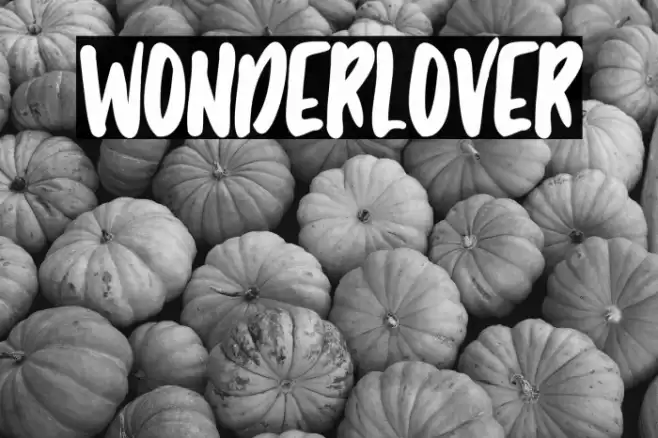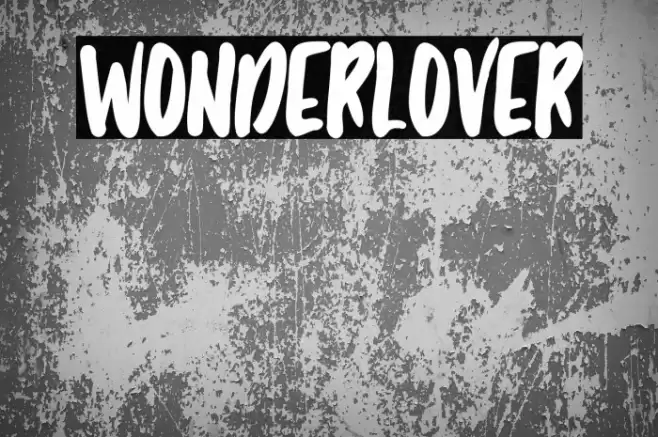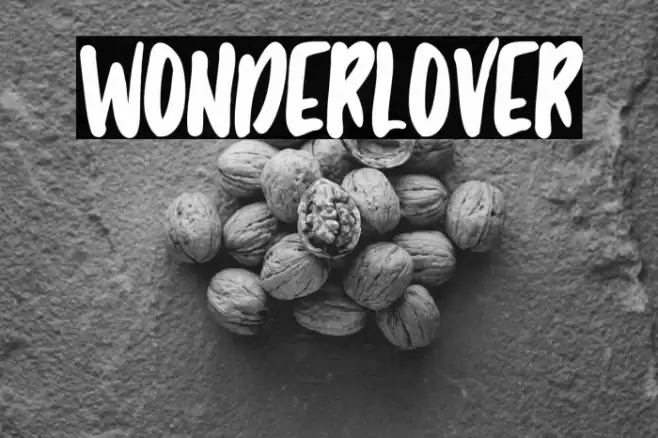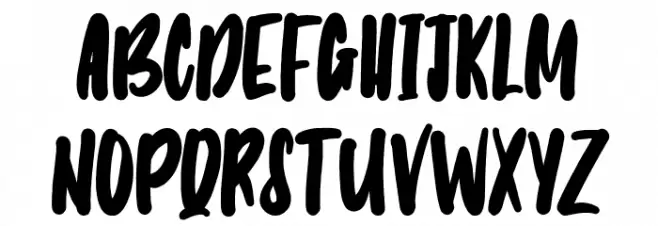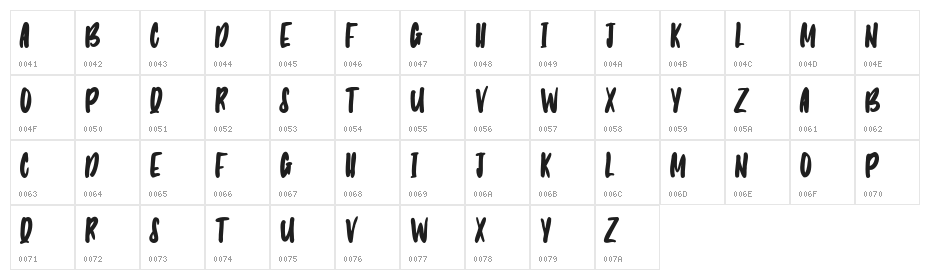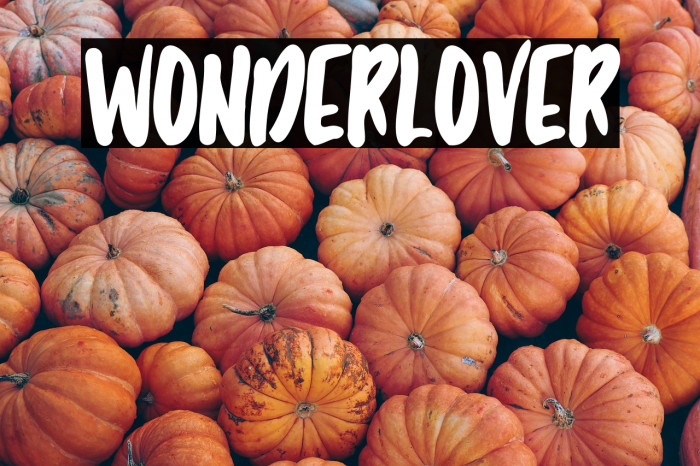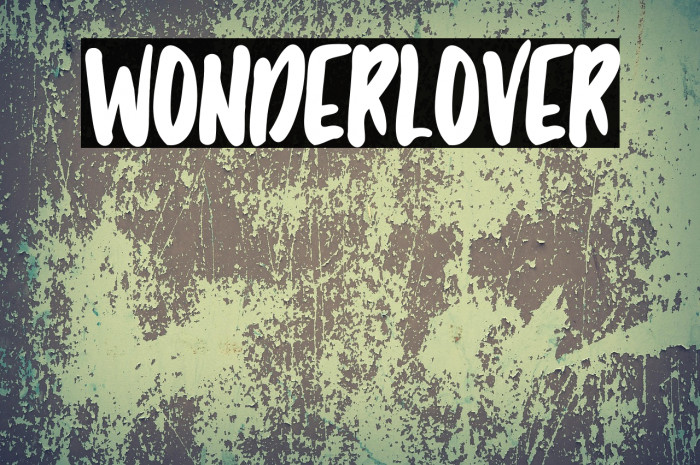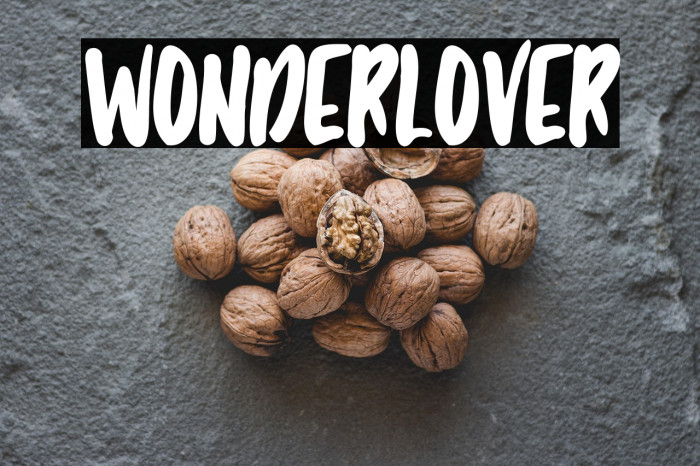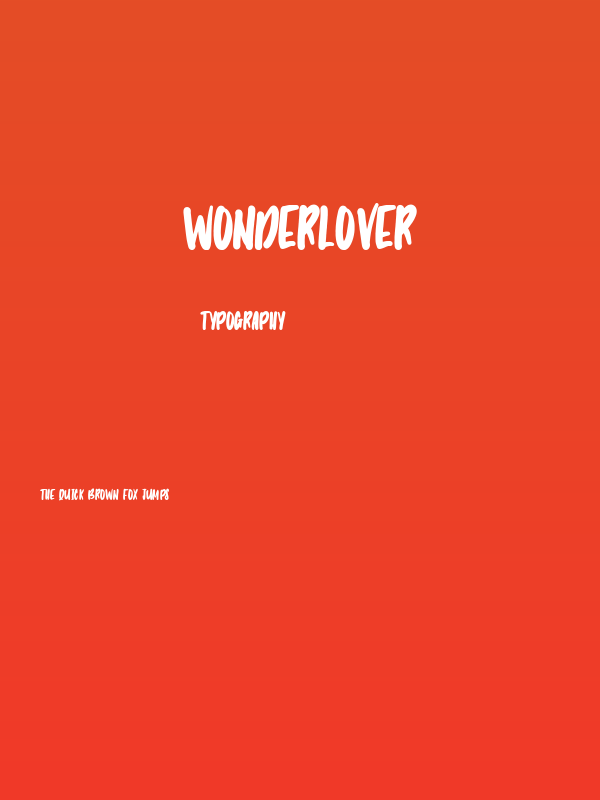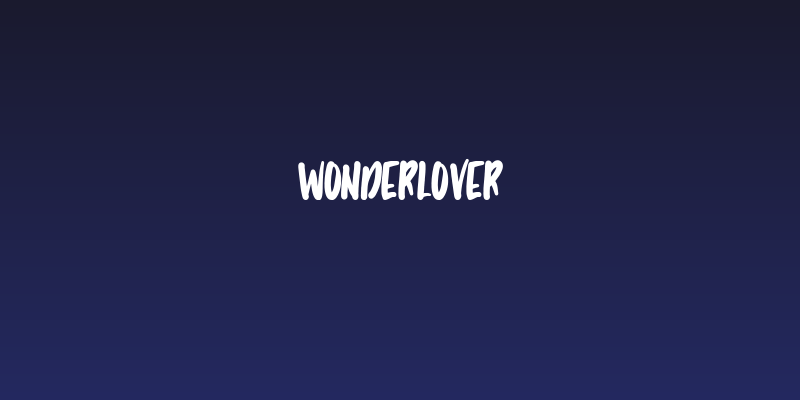
Wonderlover Font
Wonderlover Description
This font features a bold and expressive handwritten style, characterized by thick, flowing strokes that convey a sense of energy and creativity. The letters are closely spaced, creating a cohesive and dynamic appearance. The uppercase and lowercase letters maintain a consistent style, with rounded edges and a slightly irregular baseline that adds to the handwritten feel. The font's playful and informal nature makes it ideal for projects that require a personal touch or a sense of fun.
A bold, expressive handwritten font with thick, flowing strokes from Regular fonts.
- Proposed Projects: Ideal for greeting cards, posters, social media graphics, and branding projects that require a personal and creative touch.
- Character Spacing: Tight